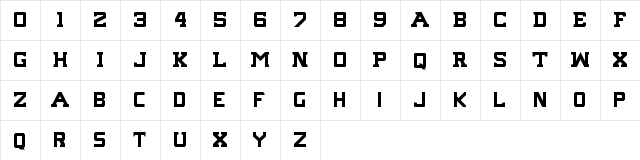
rails Regular
| Designer | walkerws |
Design Context for rails Typeface
rails offers clean, dependable letterforms without strong stylistic allegiance, making it a practical choice for designers who need flexibility.